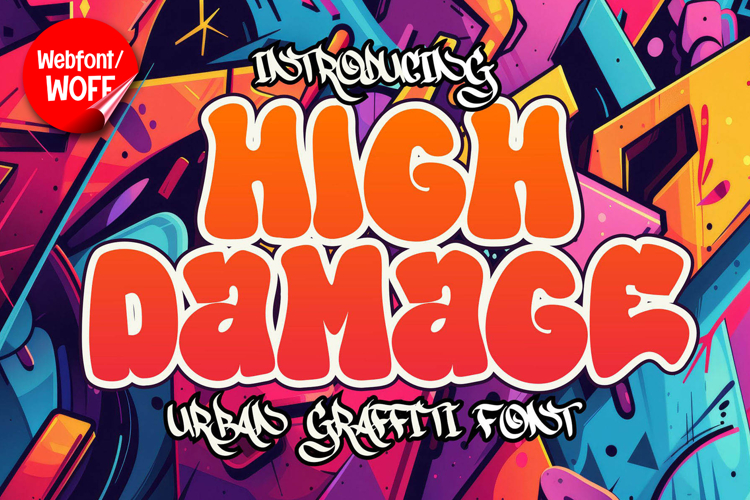
High Damage | Bold Graffiti Webfont for Urban Websites
High Damage is a bold graffiti webfont designed to deliver raw energy and strong urban character for modern website design. Inspired by street art and expressive tagging styles, this font features powerful letterforms that instantly capture attention. It is an excellent choice for projects that require a dynamic, edgy, and creative typographic presence.
High Damage includes a complete set of uppercase characters designed with bold graffiti shapes. The strong strokes and energetic structure create a sense of movement and intensity, making the font ideal for headlines, banners, hero sections, and featured content. Its impactful design helps establish a clear visual hierarchy, guiding attention to key elements within a layout.
In addition to letters, the font includes numbers and punctuation, allowing flexible usage across various parts of a website. It works well for promotional content, event announcements, pricing displays, and navigation highlights. Each character maintains a consistent graffiti style, ensuring a cohesive and unified visual identity throughout the design.
With multilingual support, High Damage includes a wide range of accented characters, making it suitable for international websites and global audiences. This allows content to be displayed clearly across different languages while preserving the bold graffiti aesthetic.
The graffiti style of High Damage makes it especially suitable for urban-themed websites, streetwear brands, music platforms, gaming interfaces, and creative portfolios. Its expressive and energetic look adds personality and intensity, helping websites stand out in competitive digital environments. The raw and authentic feel also enhances branding that embraces street culture and bold creativity.
Despite its strong and stylized appearance, High Damage is designed with readability in mind. The spacing and structure of each character are carefully balanced to ensure clarity, particularly in display sizes. This makes it effective for impactful headings and short content elements where both style and usability are important.
High Damage is a webfont that combines graffiti aesthetics with modern digital functionality. Its bold shapes, energetic flow, and urban influence create a distinctive typographic presence that enhances website design. For projects that require a powerful, creative, and street-inspired font, High Damage offers a strong and engaging solution.